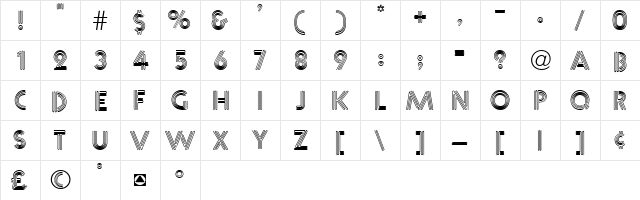
VibroText Normal Font Preview
VibroText Normal
Design Context for VibroText Typeface
VibroText is a composed and adaptable typeface that performs quietly and consistently across a wide range of design contexts.